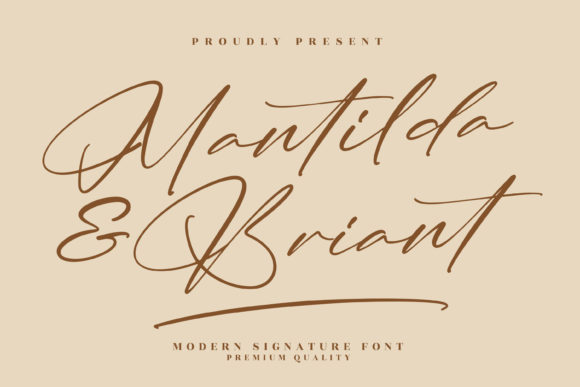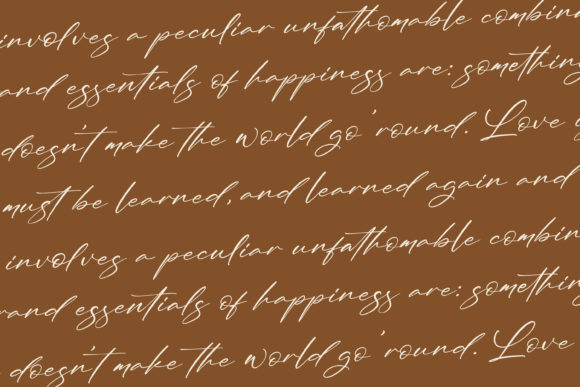
About Mantilda & Briant Font
Mantilda & Briant is a lovely script font featuring charming, playful characters that seem to dance along the baseline. Mantilda & Briant is PUA encoded which means you can access all glyphs and swashes with ease!